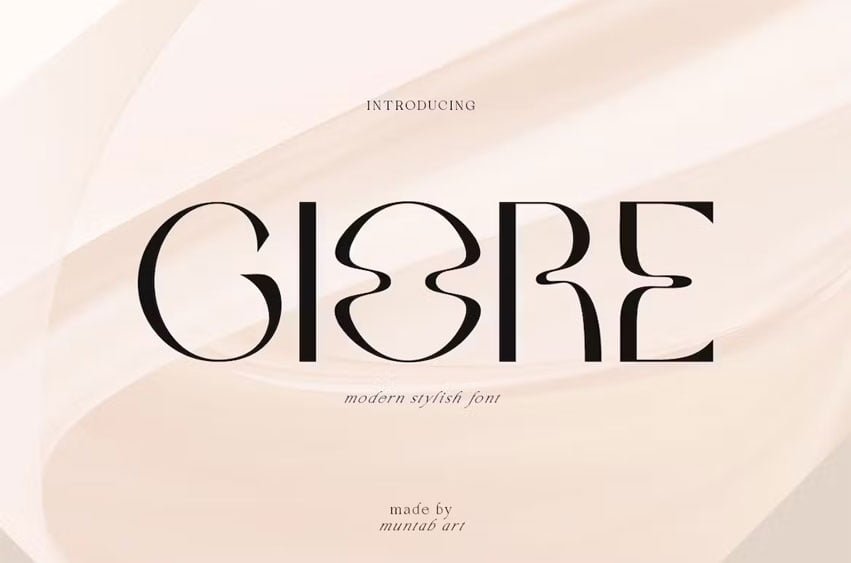
Giore Font includes uppercase letters, numerals, and a large range of punctuation. Serif font with a modern stylish style. Created for posters, web design, branding, illustrations, badges and some other works.